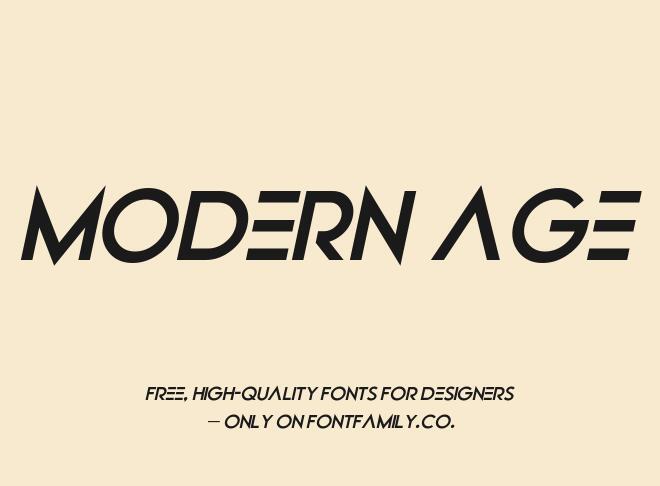
Modern Age Font
Modern Age Font is a clean, geometric typeface with a minimalistic appeal. Designed by the Creative Typography Studio, this font carries a modern vibe that blends simplicity with sophistication, making it an excellent choice for a variety of design projects. The crisp, clean lines and balanced proportions make it ideal for use in logos, headlines, and posters. Its sans serif style is reminiscent of popular fonts like Futura and Helvetica, but with a unique twist that sets it apart. The Modern Age Font is versatile and adaptive, ensuring readability across different mediums. Its modern and minimalistic design aesthetic makes it a go-to font for designers aiming to give their work a contemporary edge. Free under the Open Font License, Modern Age Font is a must-have addition to your typography toolkit.